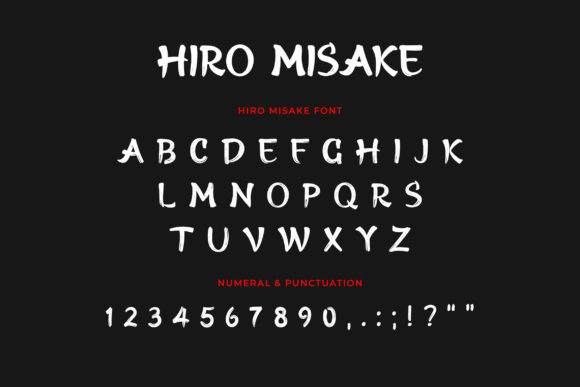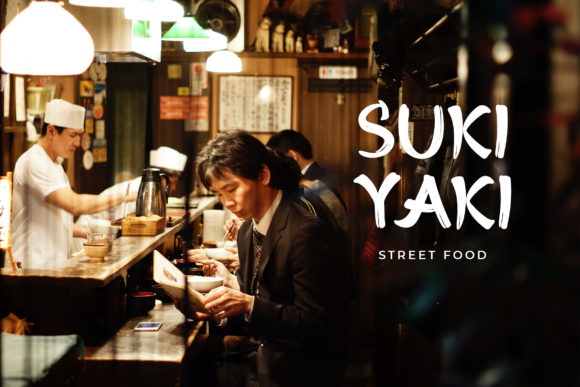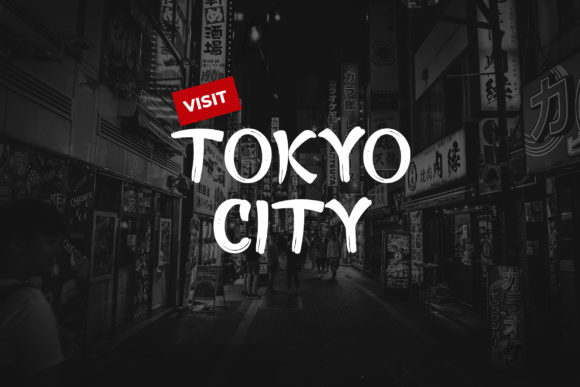
Hiro Misake Font: Authentic Japanese Brush Font for Creative Branding
About the Hiro Misake Font
The Hiro Misake Font is here to transform your projects with its distinctive character and style. Hiro Misake is an incredibly genuine Japanese display font. Due to its unique style, this font is a must have in any font library.
Its strong, bold strokes make Hiro Misake ideal for headlines, logos, and short impactful statements in branding materials or posters. It excels in creating a memorable visual impact for packaging design, particularly for products emphasizing quality and tradition. However, its weight and character spacing make it unsuitable for body text or lengthy paragraphs; legibility would suffer significantly. Avoid using it in UI contexts or situations requiring high readability at smaller sizes.
The font projects a confident and sophisticated personality, leaning towards a modern interpretation of classic Japanese design aesthetics. To complement this, consider pairing Hiro Misake with a clean sans-serif like Montserrat for body copy or a delicate script font such as Great Vibes for adding a touch of elegance to secondary text elements.
For a more contrasting approach, a geometric sans-serif such as Futura would create a strong visual tension, suitable for projects aiming for a bold, graphic style. Conversely, a warmer, neutral serif like Playfair Display could soften the overall impression, offering a refined balance.
Hiro Misake Font Usage Examples
Hiro Misake Font Example